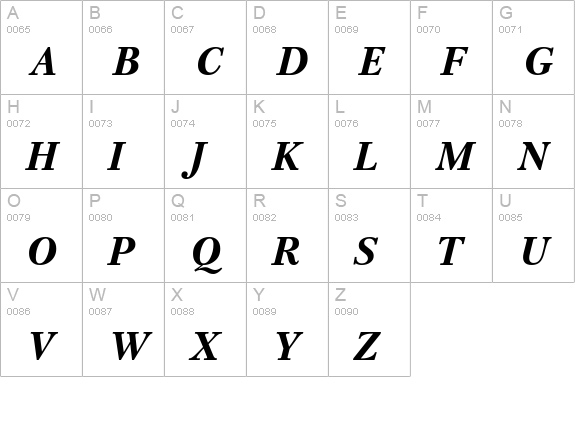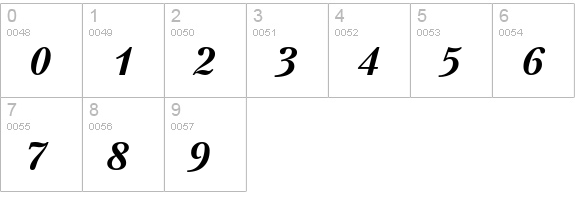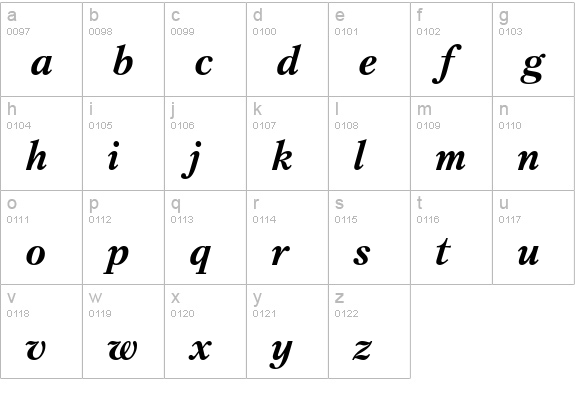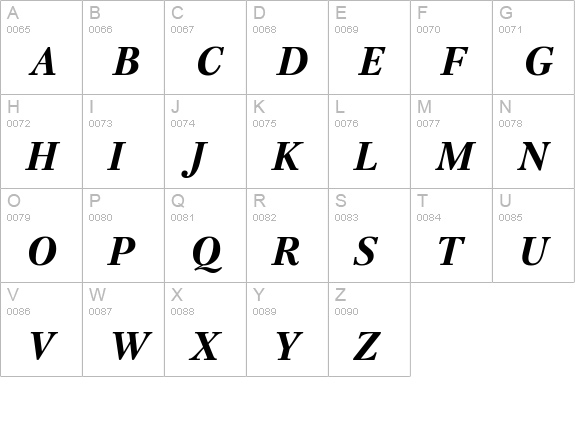
PetersburgITT BoldItalic Font Details
PetersburgITT BoldItalic is an exquisite display font that exudes elegance and sophistication. Its distinctive bold and italic design adds a touch of flair and charisma to any project it graces. Created with meticulous attention to detail, this font is perfect for making a statement in headlines, logos, posters, and more. The bold strokes of PetersburgITT BoldItalic command attention, while the italicized slant adds a sense of drama and dynamism. This font is ideal for projects that require a strong and impactful visual presence. Whether used in print or digital media, PetersburgITT BoldItalic will captivate your audience and leave a lasting impression. What sets PetersburgITT BoldItalic apart is not only its stunning aesthetics but also its availability as a free download. Yes, you read that right – this remarkable font is freely available to download at FontsMarket.com. We believe in making high-quality fonts accessible to everyone, and PetersburgITT BoldItalic is no exception. By offering PetersburgITT BoldItalic for free, we hope to empower designers, creatives, and enthusiasts to explore their artistic vision without any limitations. With this font in your arsenal, you can effortlessly elevate your designs and bring your ideas to life. So why wait? Head over to FontsMarket.com and download PetersburgITT BoldItalic today. Unleash your creativity and let this font become your go-to choice for projects that demand a bold and daring touch. Embrace the power of PetersburgITT BoldItalic and let your designs stand out from the crowd.